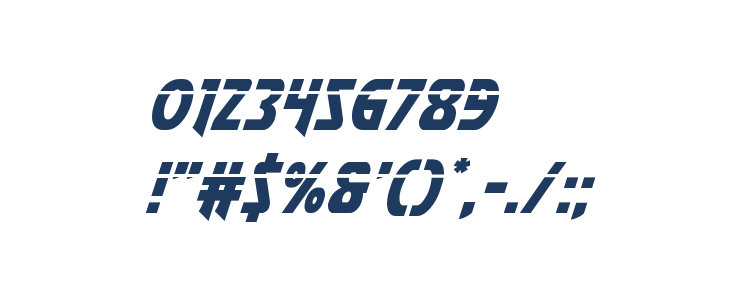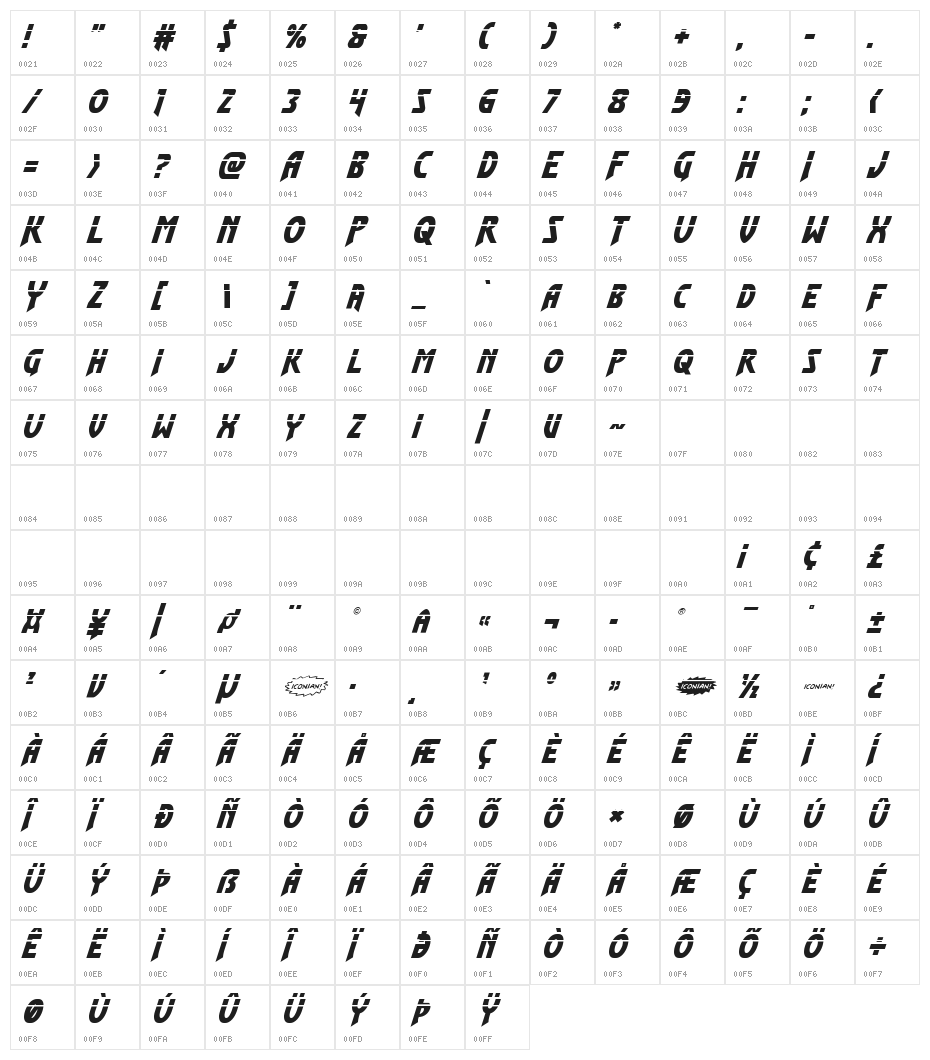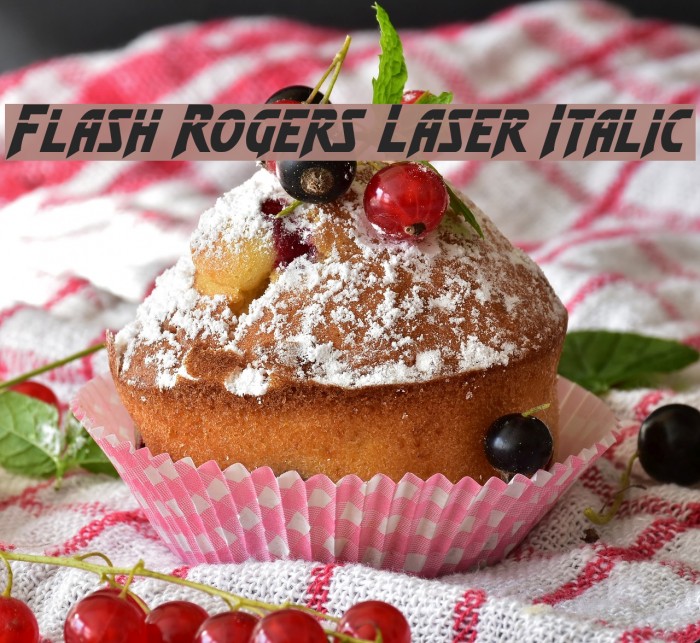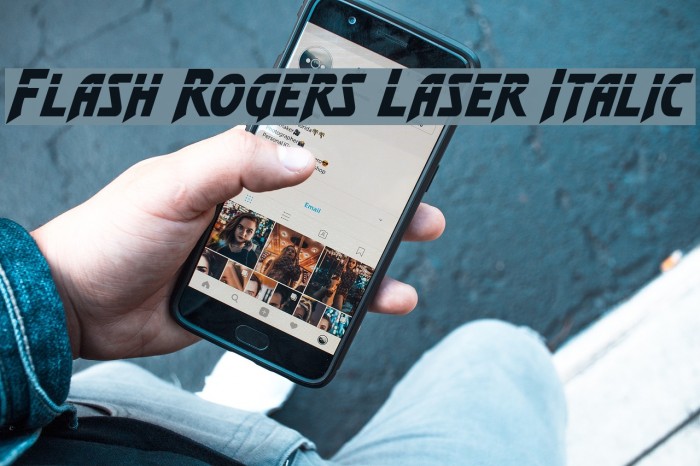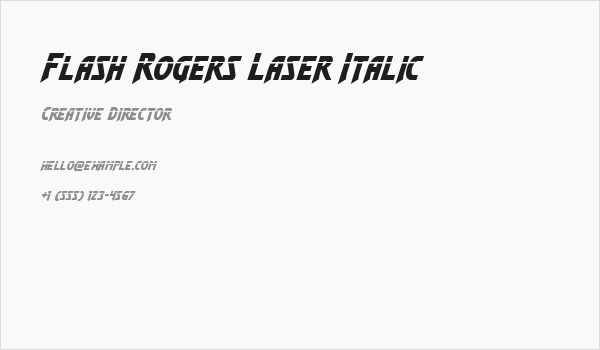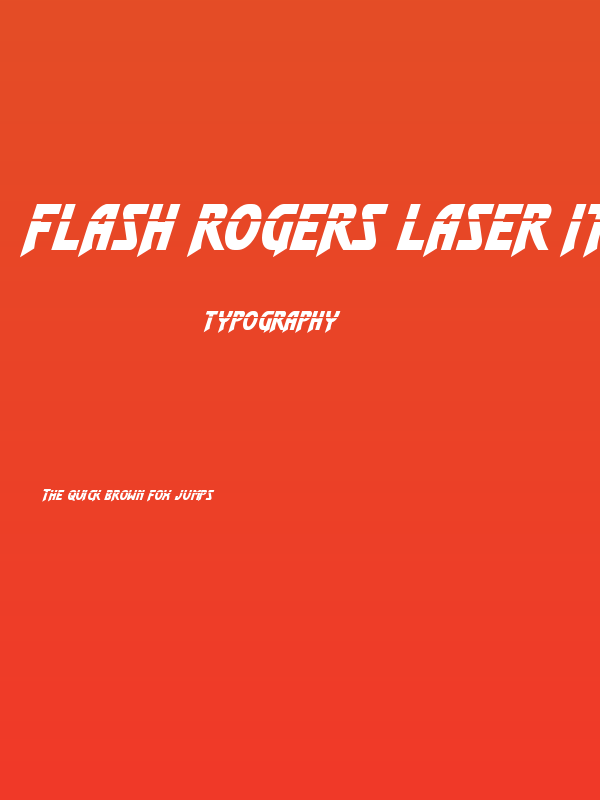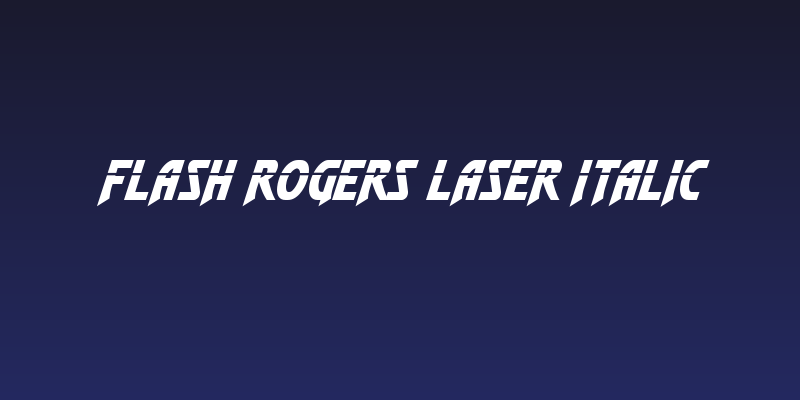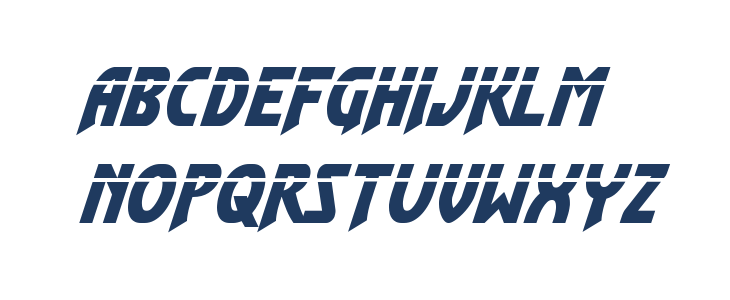
Flash Rogers Laser Italic Font
Flash Rogers Laser Italic Description
This font features a bold, italicized style with sharp, angular edges and a futuristic aesthetic. The characters are designed with a dynamic slant, giving a sense of movement and speed. The strokes are thick and consistent, creating a strong visual impact. The uppercase and lowercase letters maintain a uniform style, while the numbers and special characters integrate seamlessly with the overall design. This font is ideal for projects that require a modern and energetic look.
Proposed ProjectsIdeal for sports branding, video game titles, sci-fi movie posters, and dynamic logo designs.